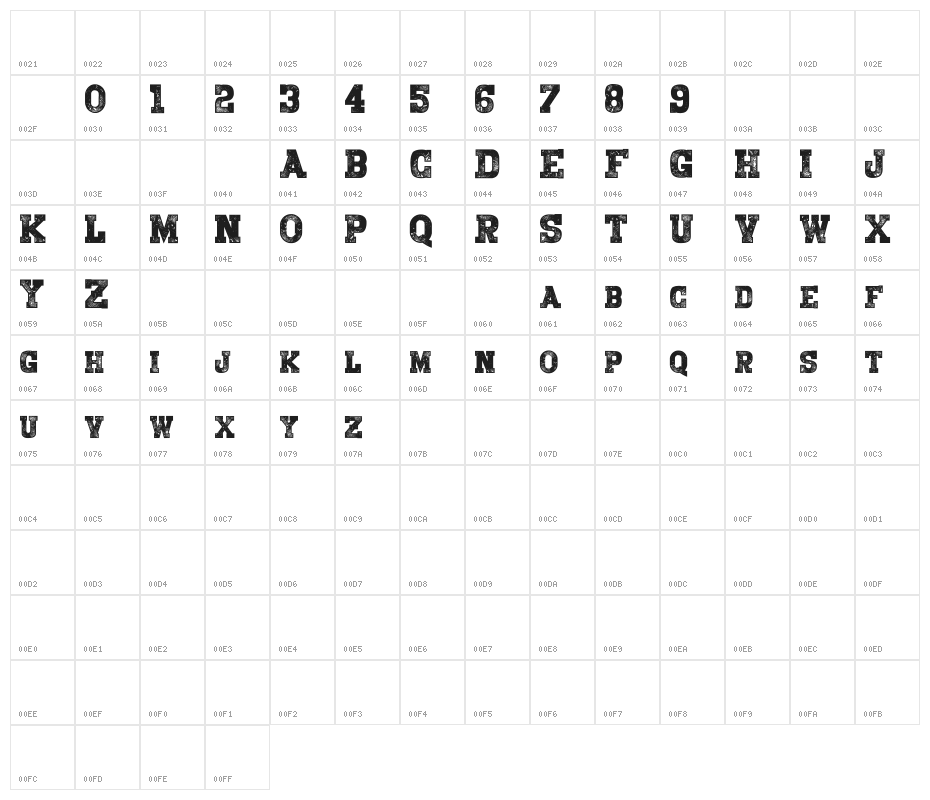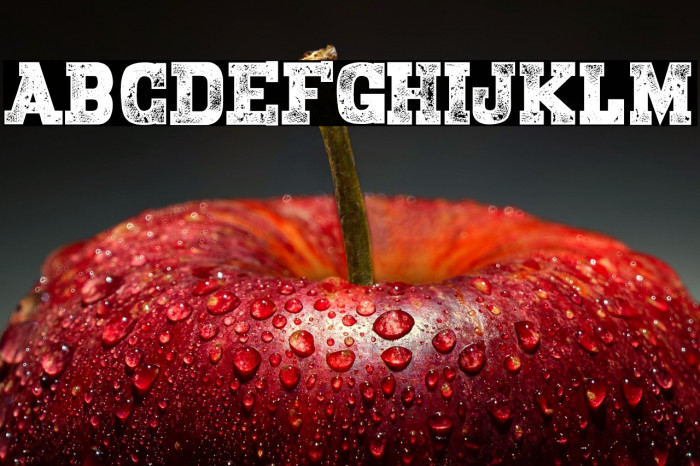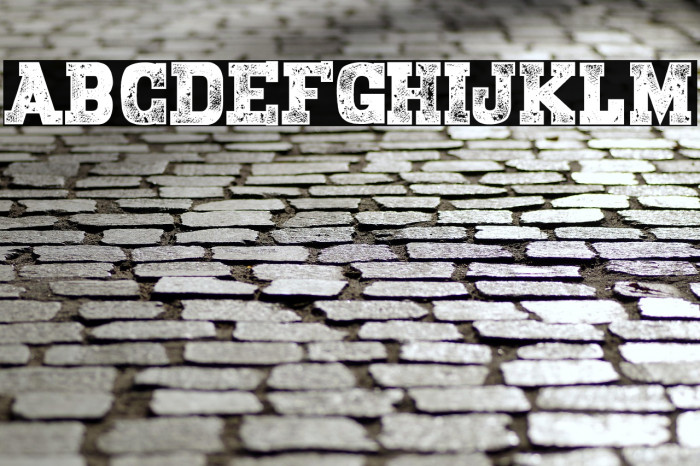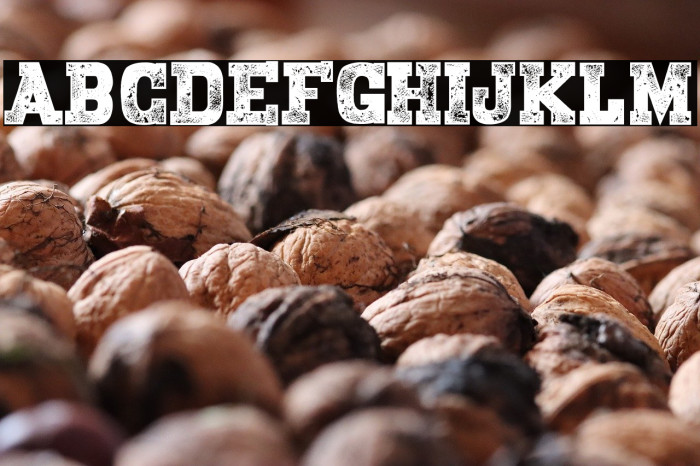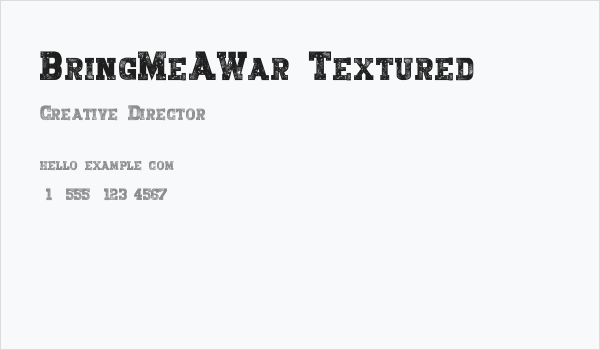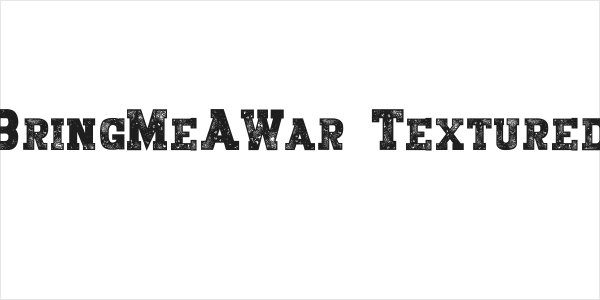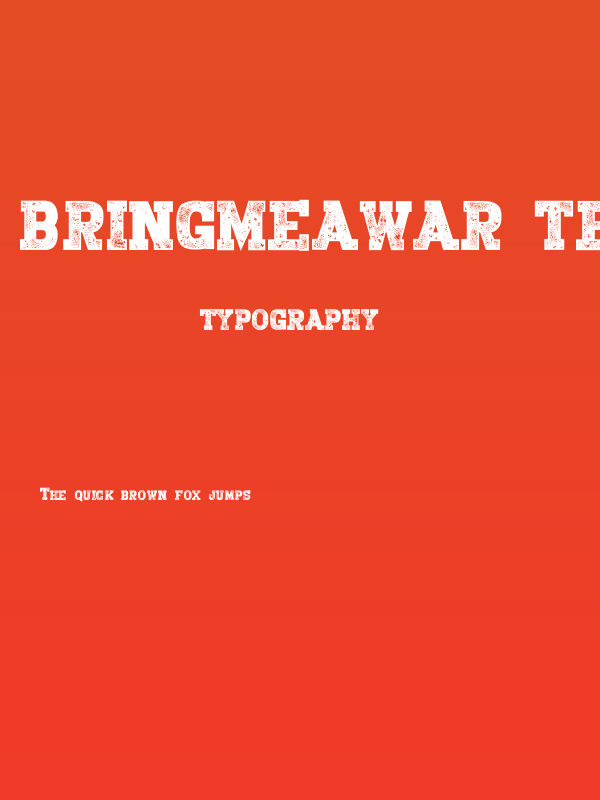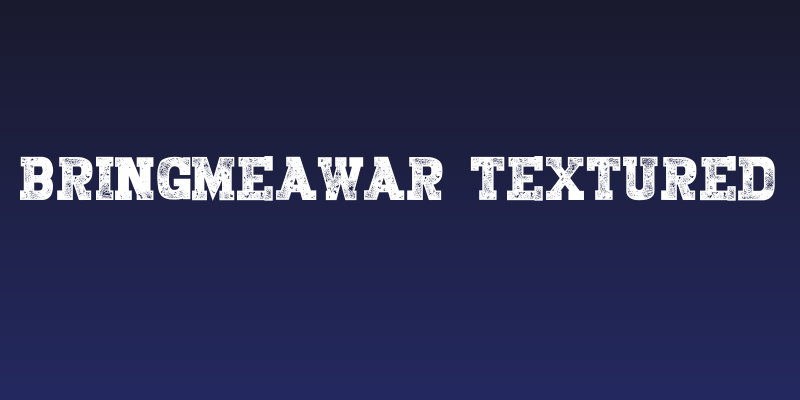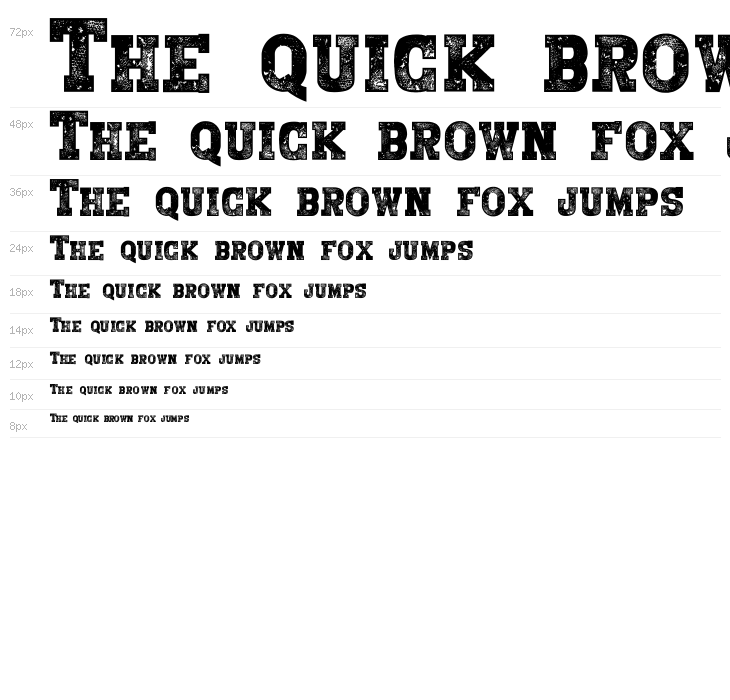
BringMeAWar_Textured Font
| Progetti proposti | Ideal for posters, album covers, branding for rustic or vintage-themed businesses, and any design needing a bold, textured statement. |